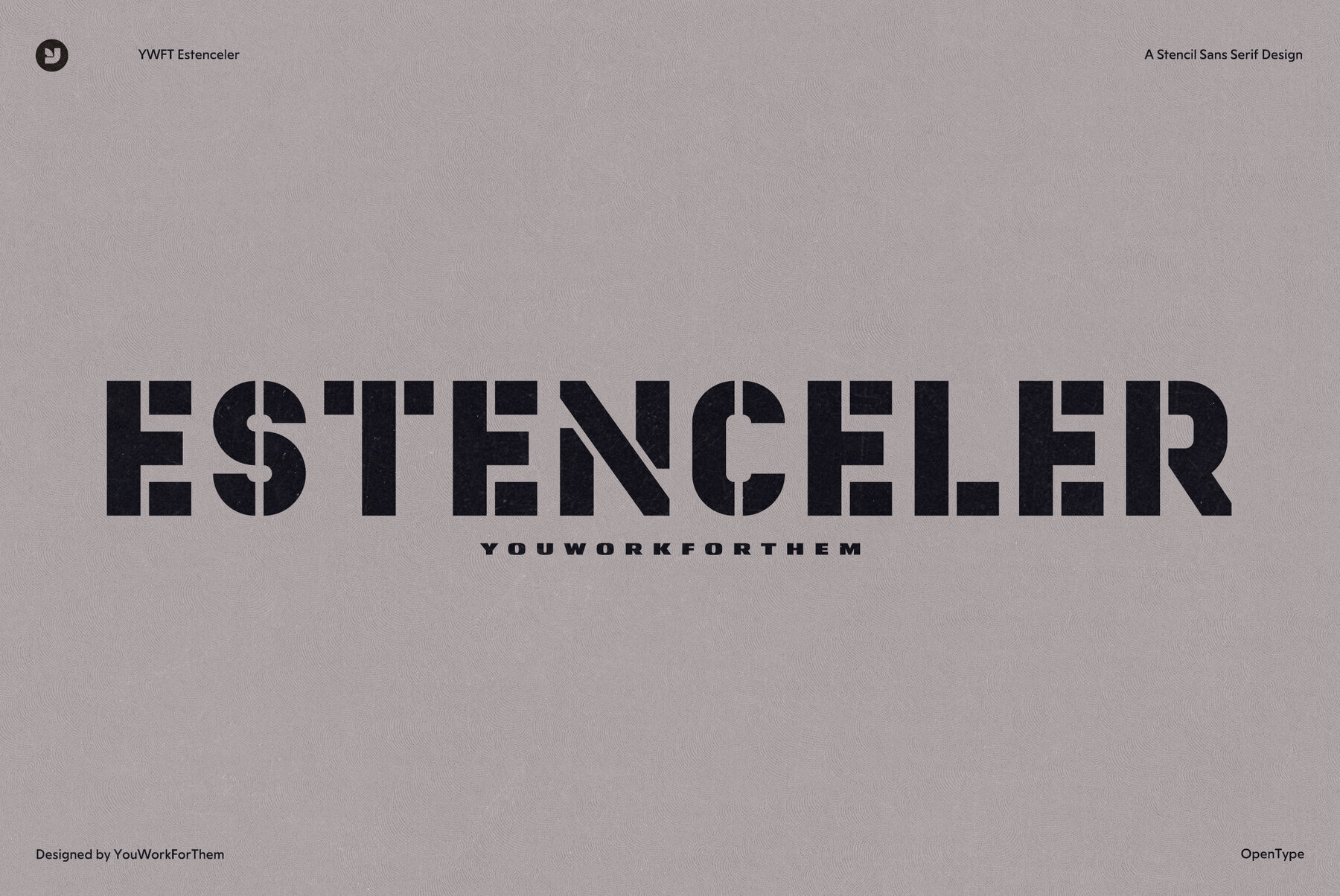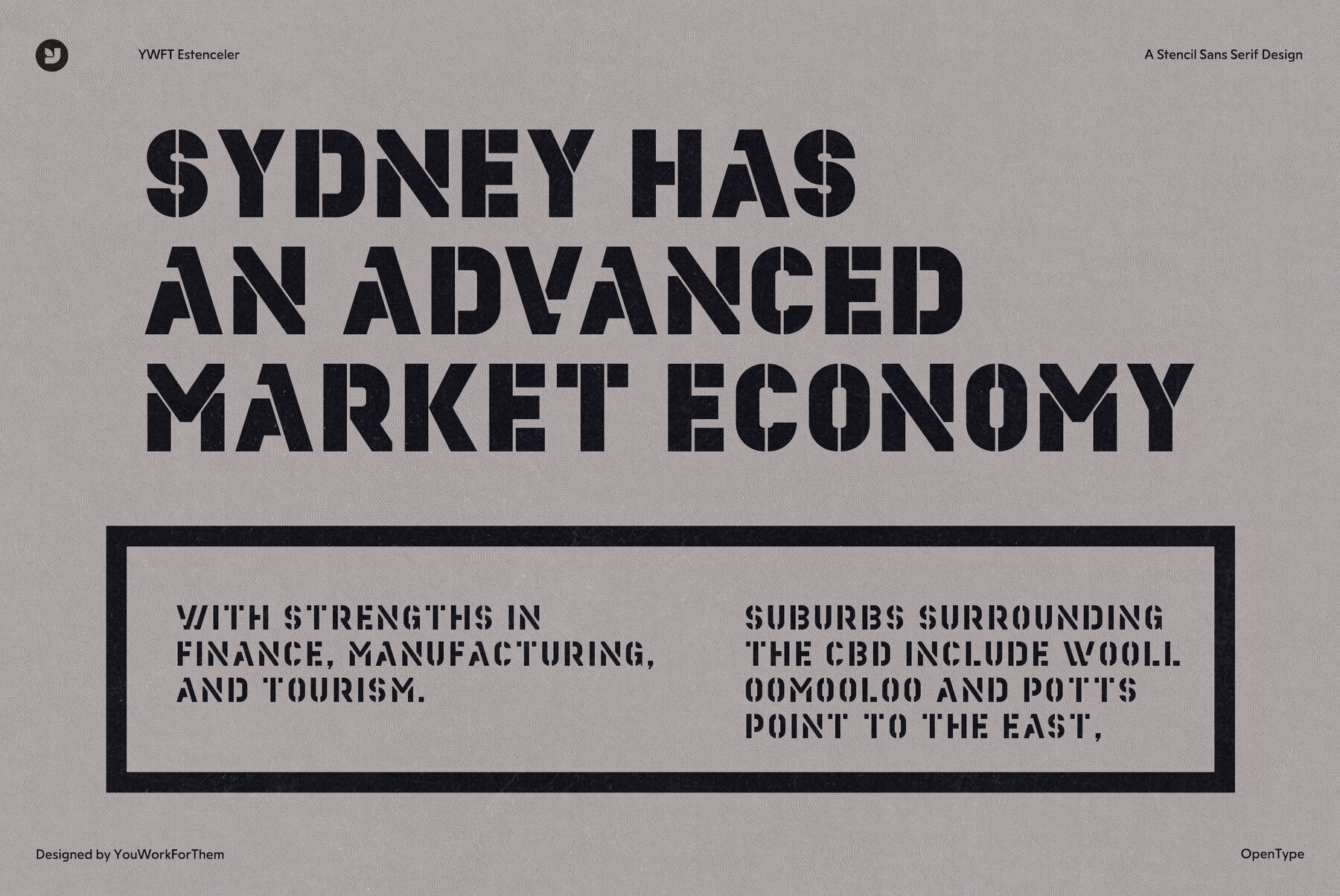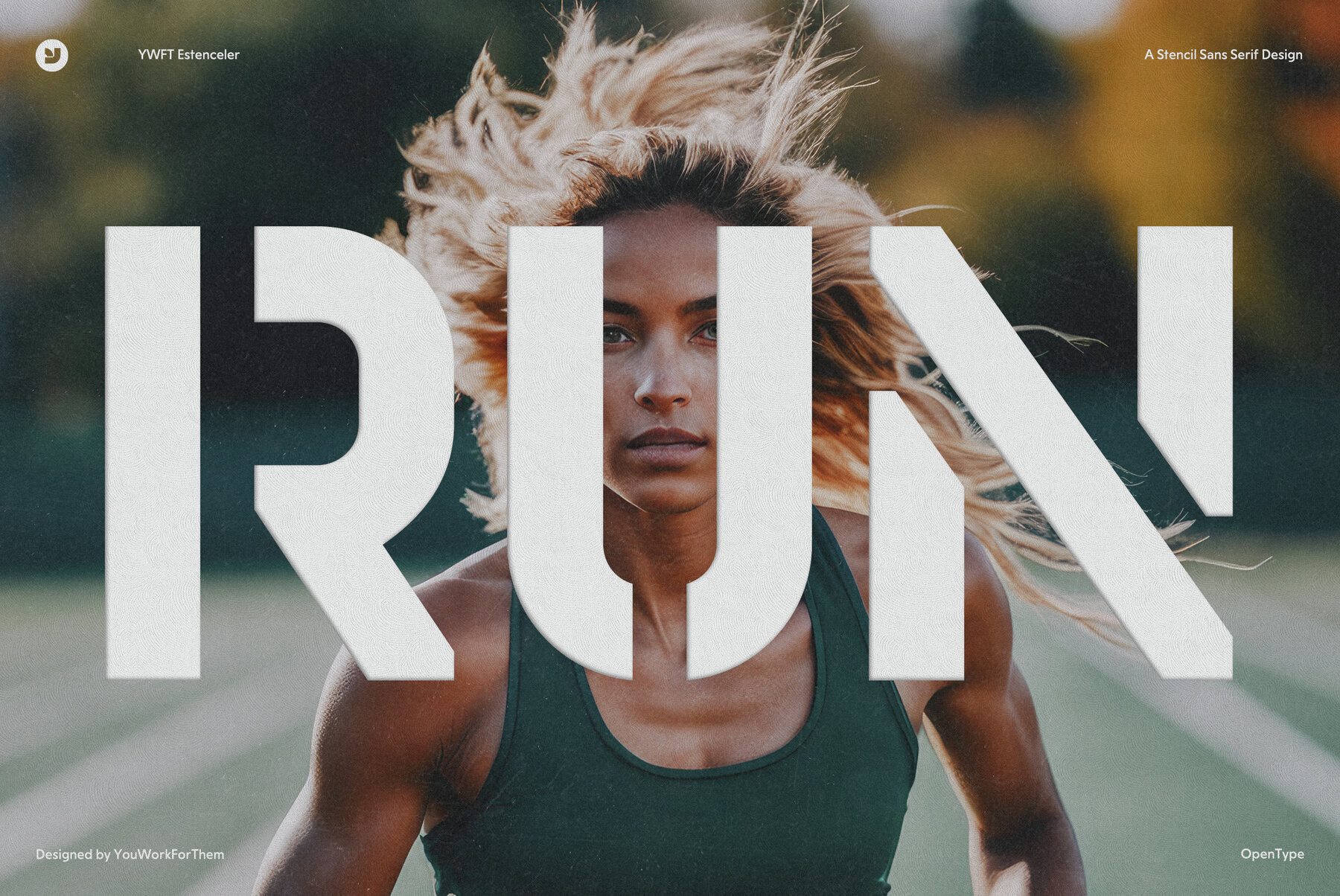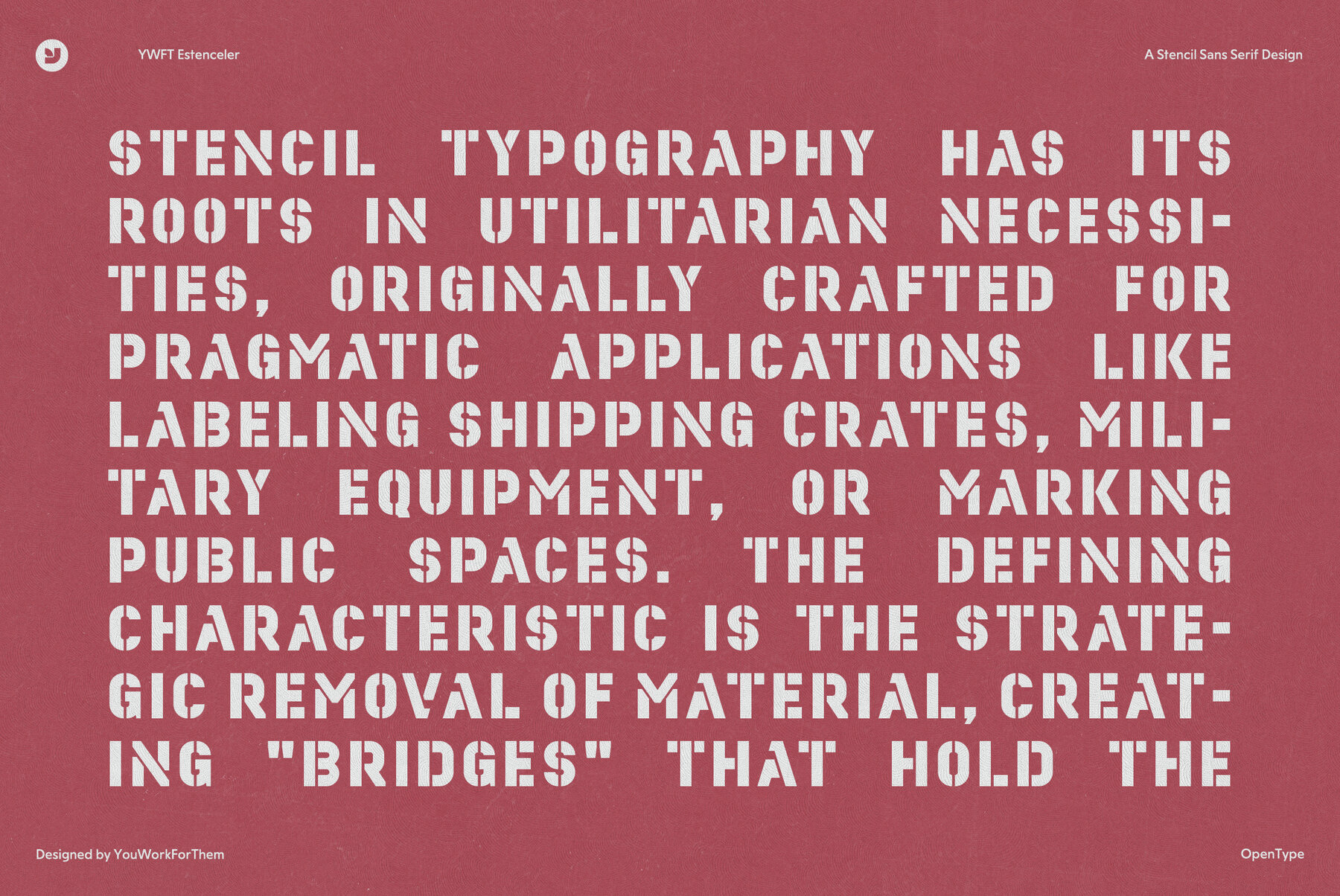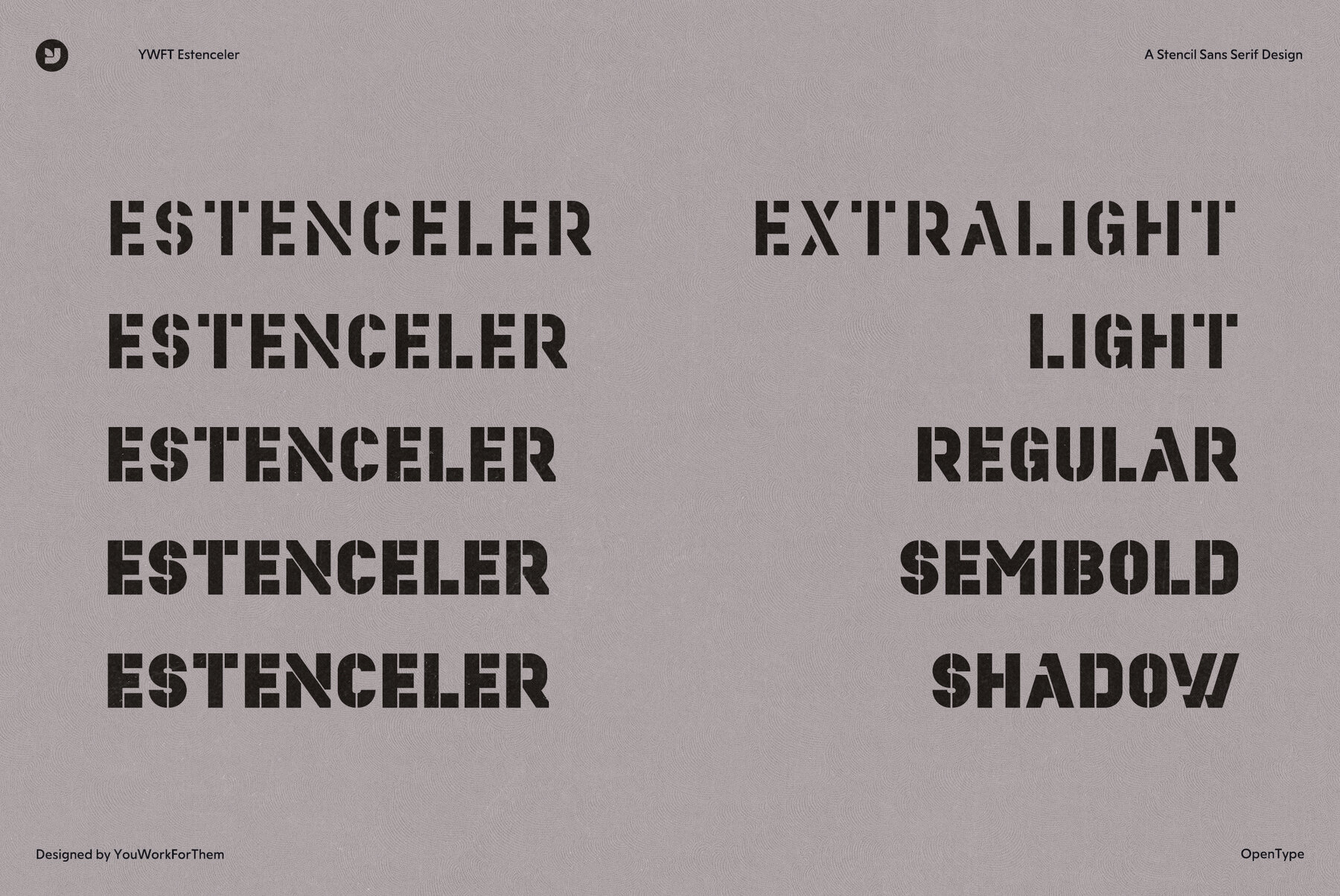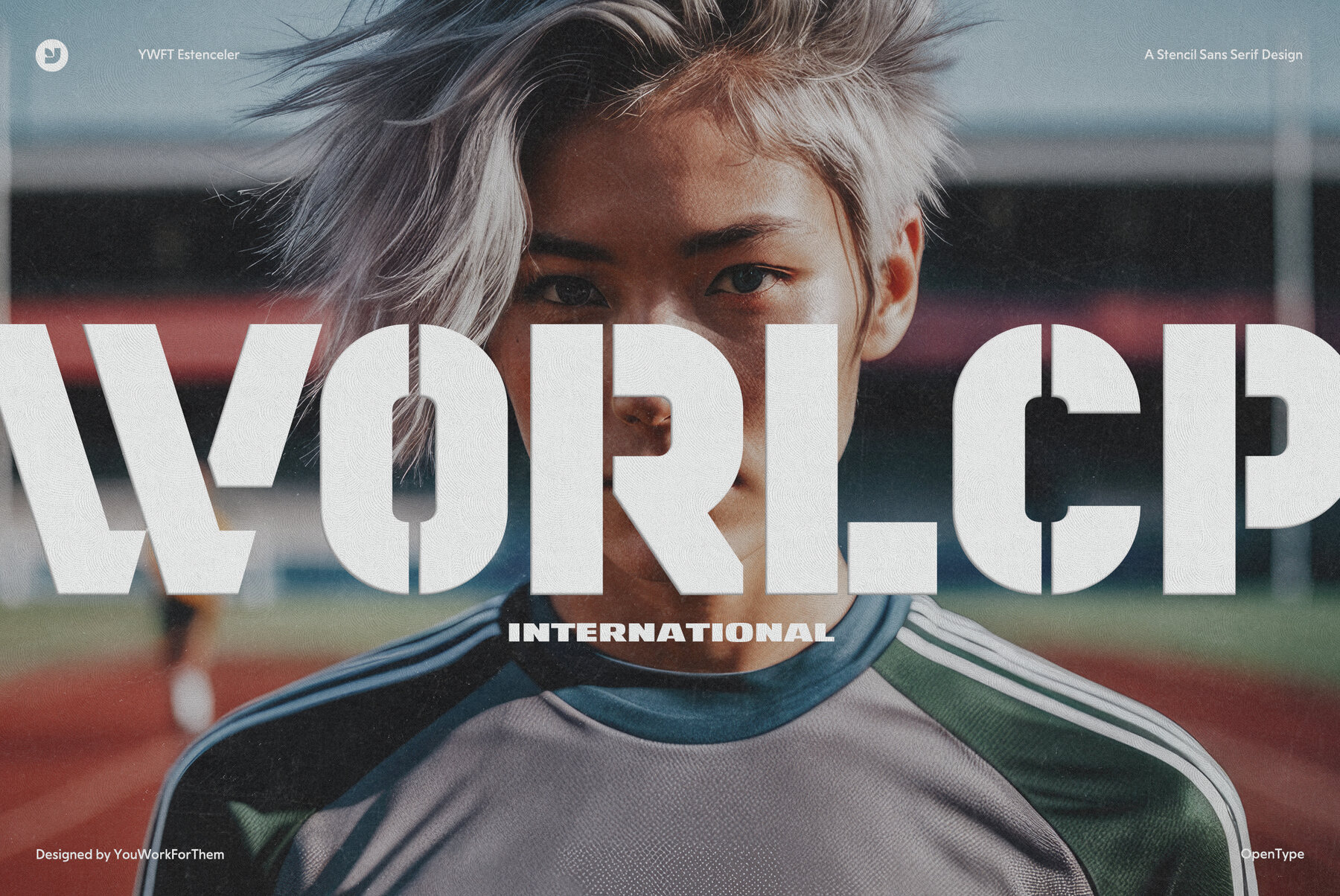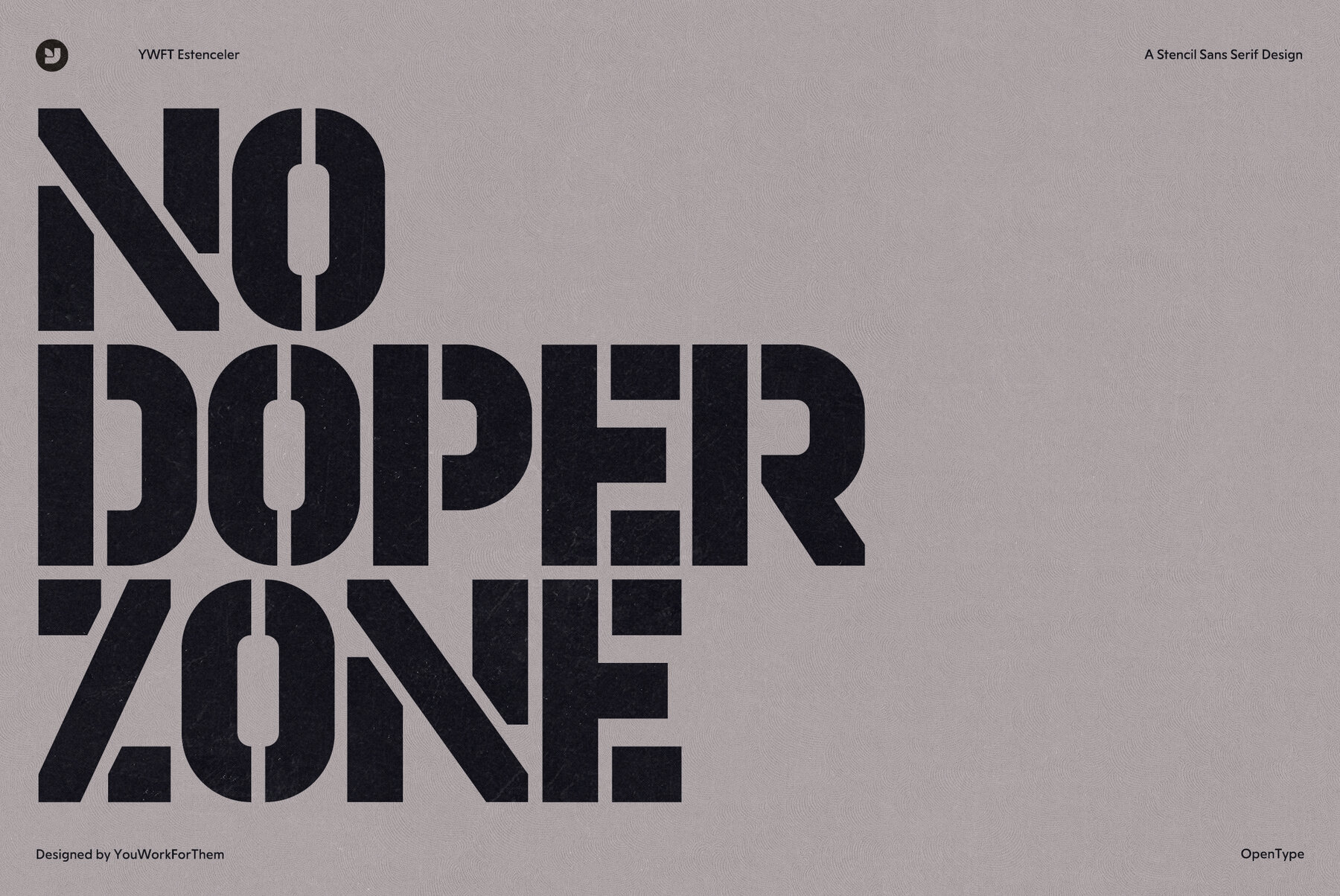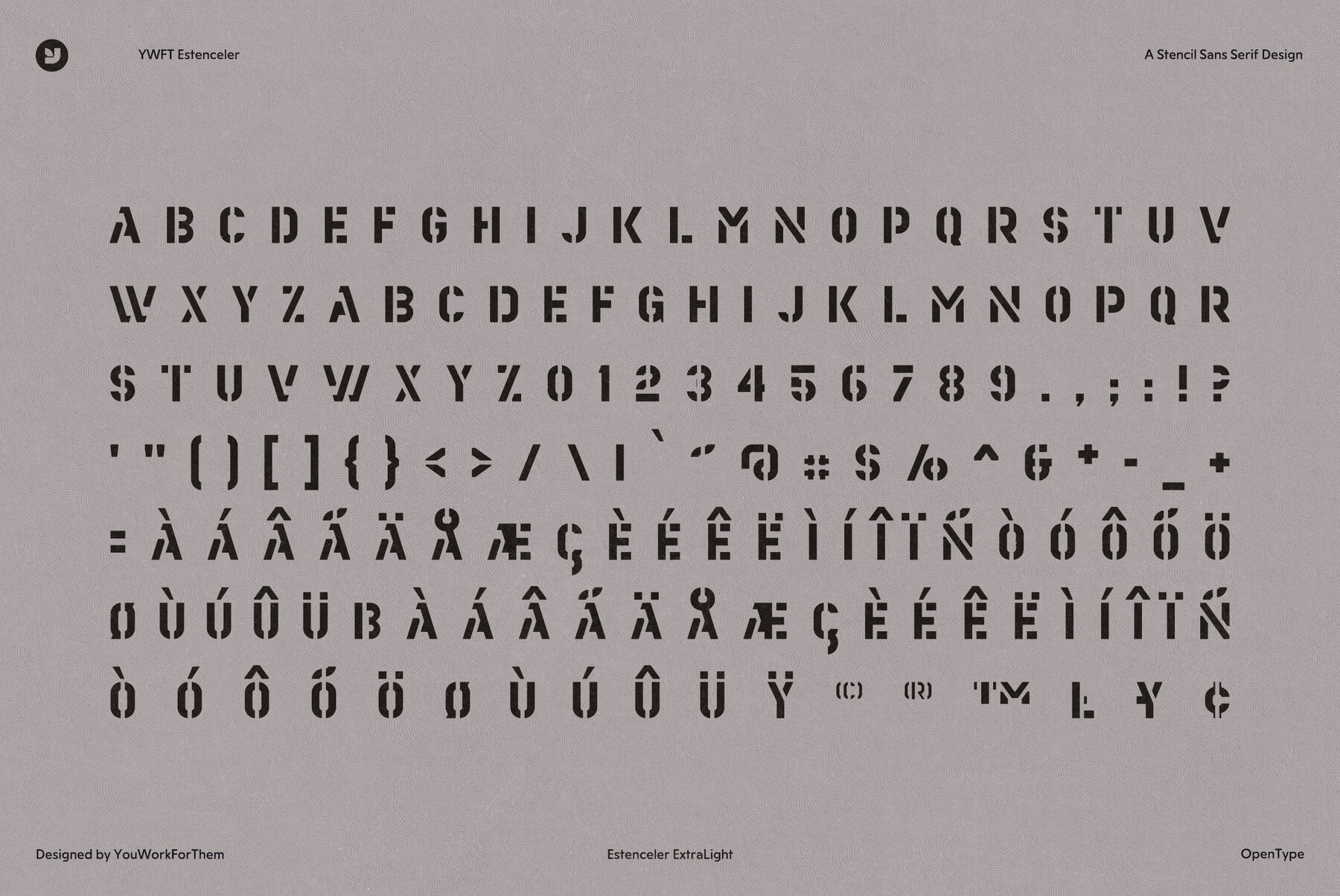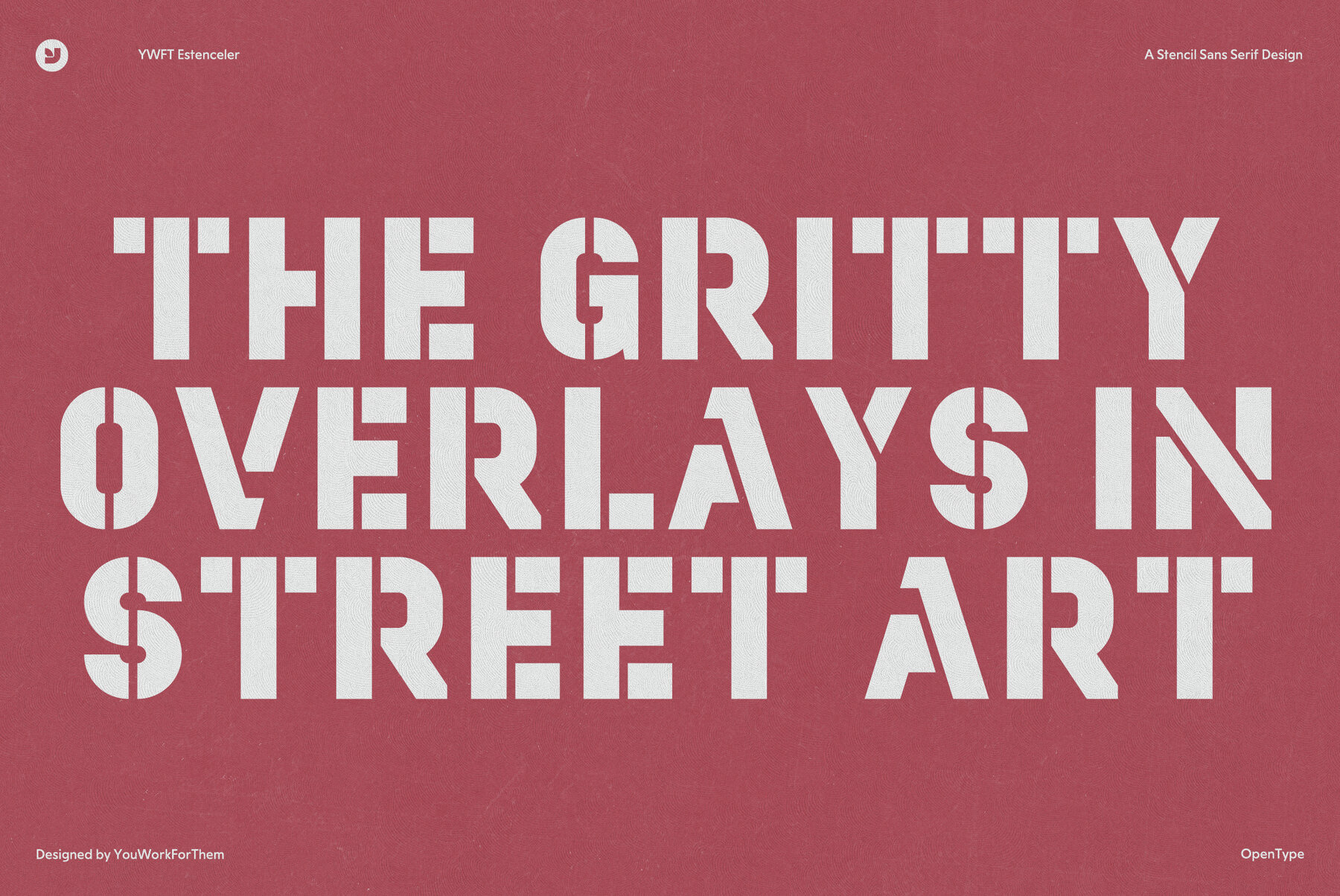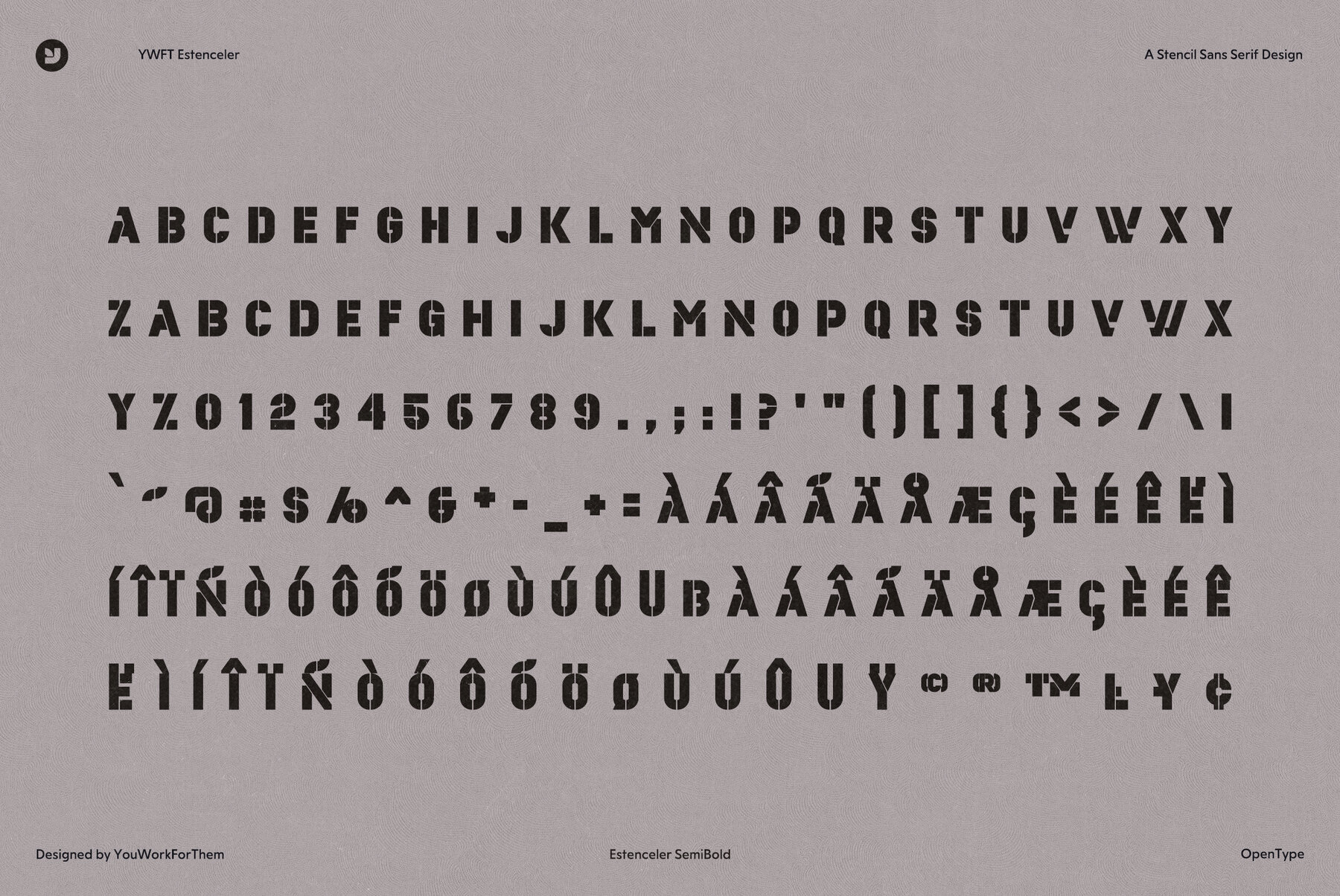
YWFT Estenceler
Originally created while under the influence of many different types of stencil lettering, YWFT Estenceler took on a more rugged, masculine and tough approach to the stencil concept, bringing new style and grace to a classic. With an appearance similar to Milton Glaser's Glaser Stencil, YWFT Estenceler has been used abundantly by various clients like Wired Magazine, Stones Throw Records and the print magazine Computer Gaming. YWFT Estenceler was designed in 2004, and converted to Opentype in 2010. Designed exclusively by Michael Cina and YouWorkForThem.